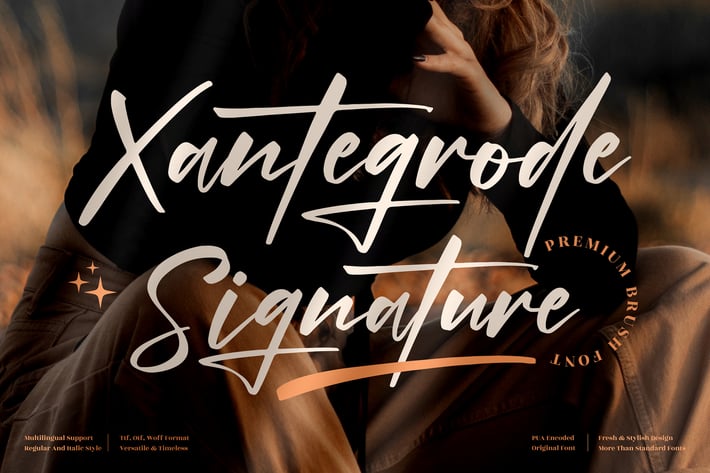
Xantegrode Signature Font
Xantegrode Signature Font is an elegant and sophisticated script font that combines luxury with modern flair. With its flowing strokes and refined character, this font is perfect for adding a professional yet personal touch to your designs.
Modern signature style with elegant strokes
Smooth, flowing lines for a refined look
Sophisticated, modern, and timeless — Xantegrode Signature Font adds a luxury touch to every design.*